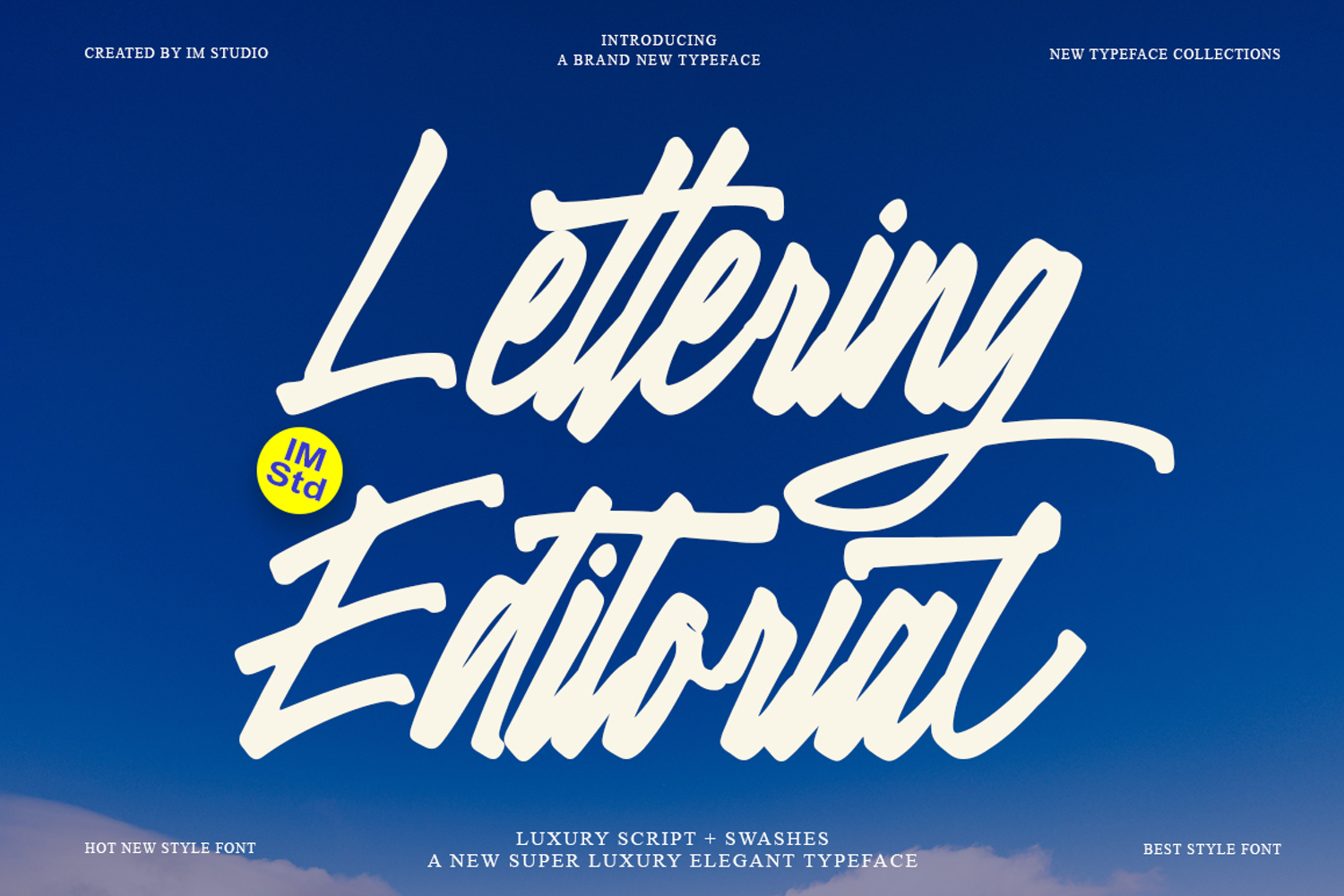
Lettering Editorial Swashes
Lettering Editorial inspired by modern vintage and retro styles, combined with a classic American traditional aesthetic.
Lettering Editorial allows you to create instant, convenient hand-lettered text. It is ideal for logos, handwritten quotes, product packaging, headlines, posters, merchandise, social media content, and greeting cards.